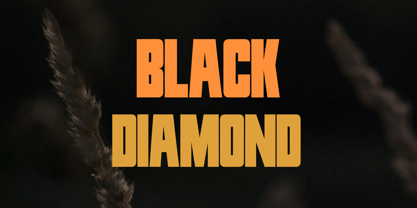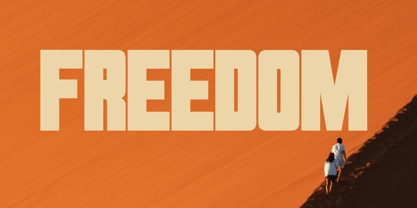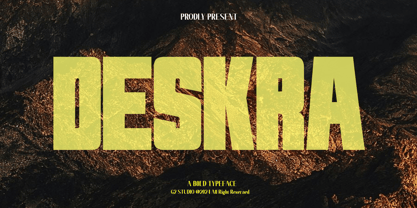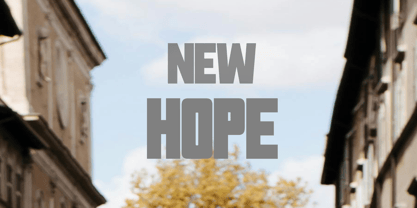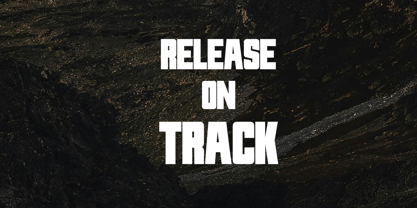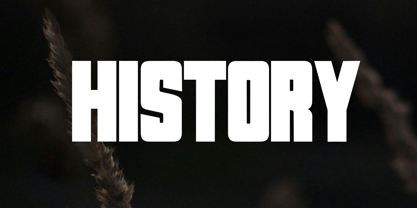
Deskra
La familia tipográfica Deskra fue diseñada por Eka Setiono y publicada por G2 Studio. Deskra contiene 1 estilos. Más información sobre esta familia
Deskra is a sans-serif font designed with a modern and minimalist style. With clean lines and bold letterforms, this font conveys a professional and contemporary feel. Deskra is ideal for various design applications, from logos and branding to digital displays, providing clarity and readability.